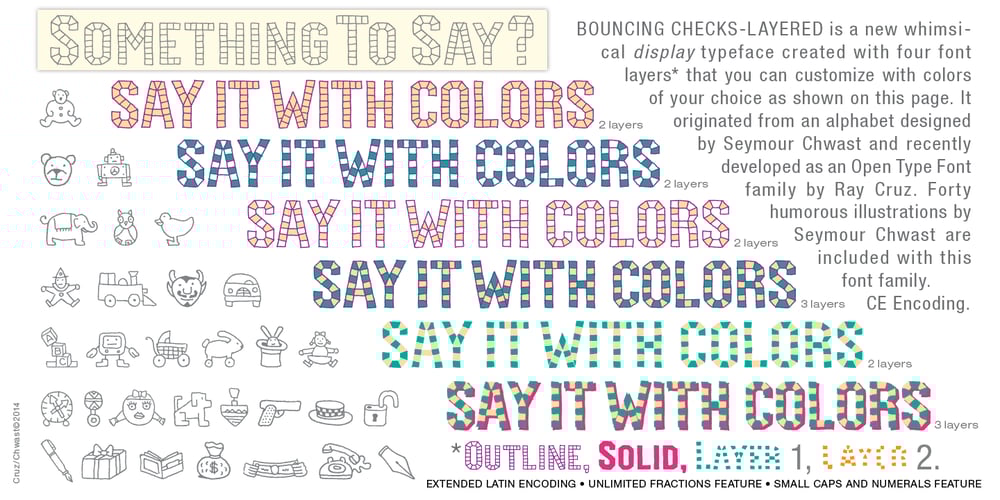
Bouncing Checks Layers Font Family was designed by Seymour Chwast, Ray Cruz and published by Cruz Fonts. Bouncing Checks Layers contains 5 styles and family package options. Bouncing Checks Layered is a new whimisical display typeface created with 4 font layers that you can customize with colors of your choice. All 4 fonts are included in the package. It originated from an alphabet designed by Seymour Chwast and recently developed as an OpenType font family by Ray Cruz. Forty humorous illustrations by Seymover are included with the font family